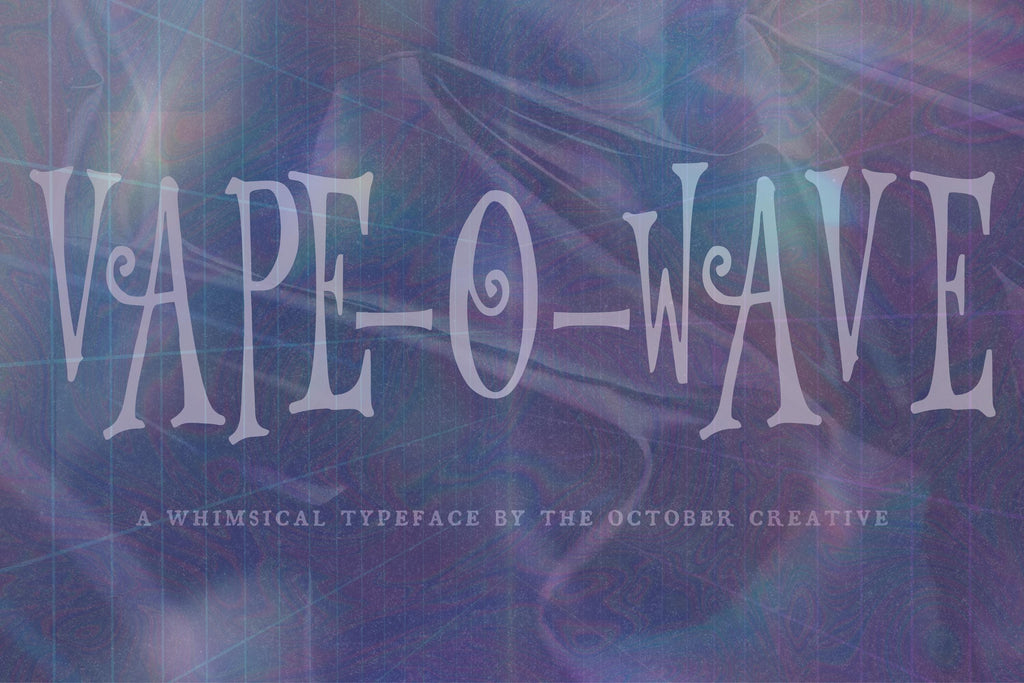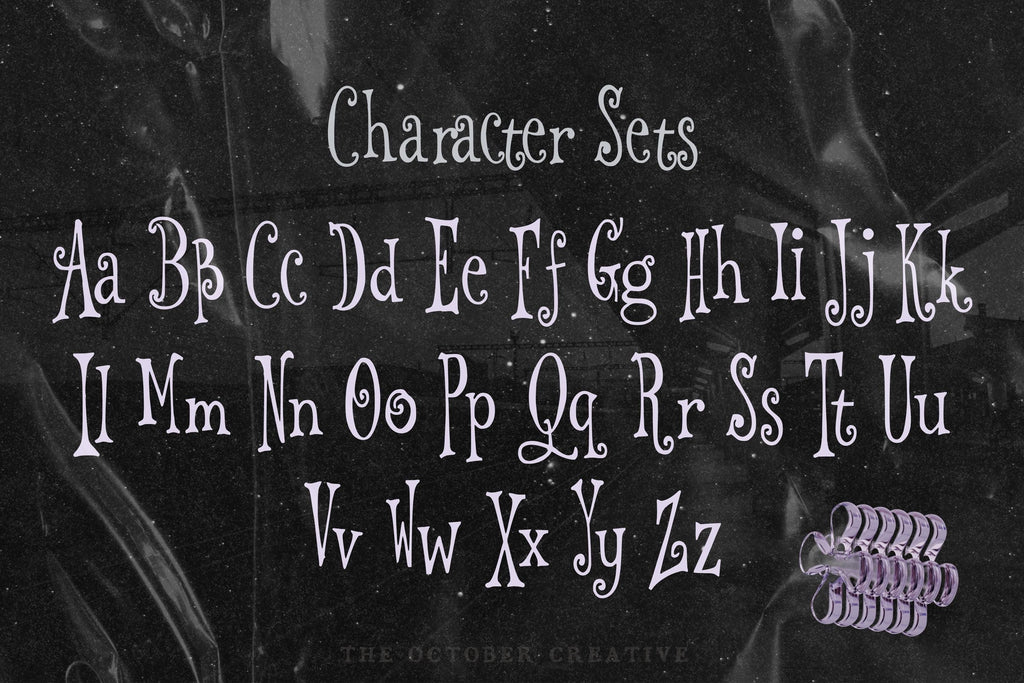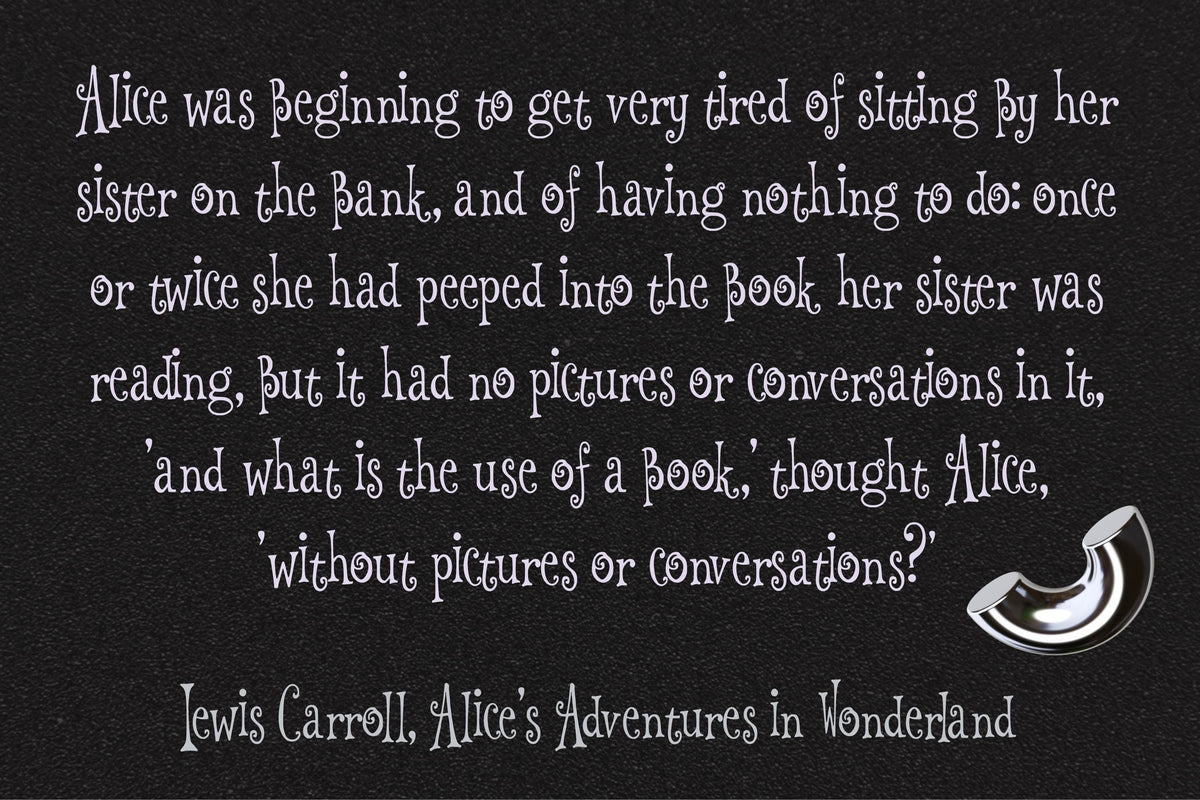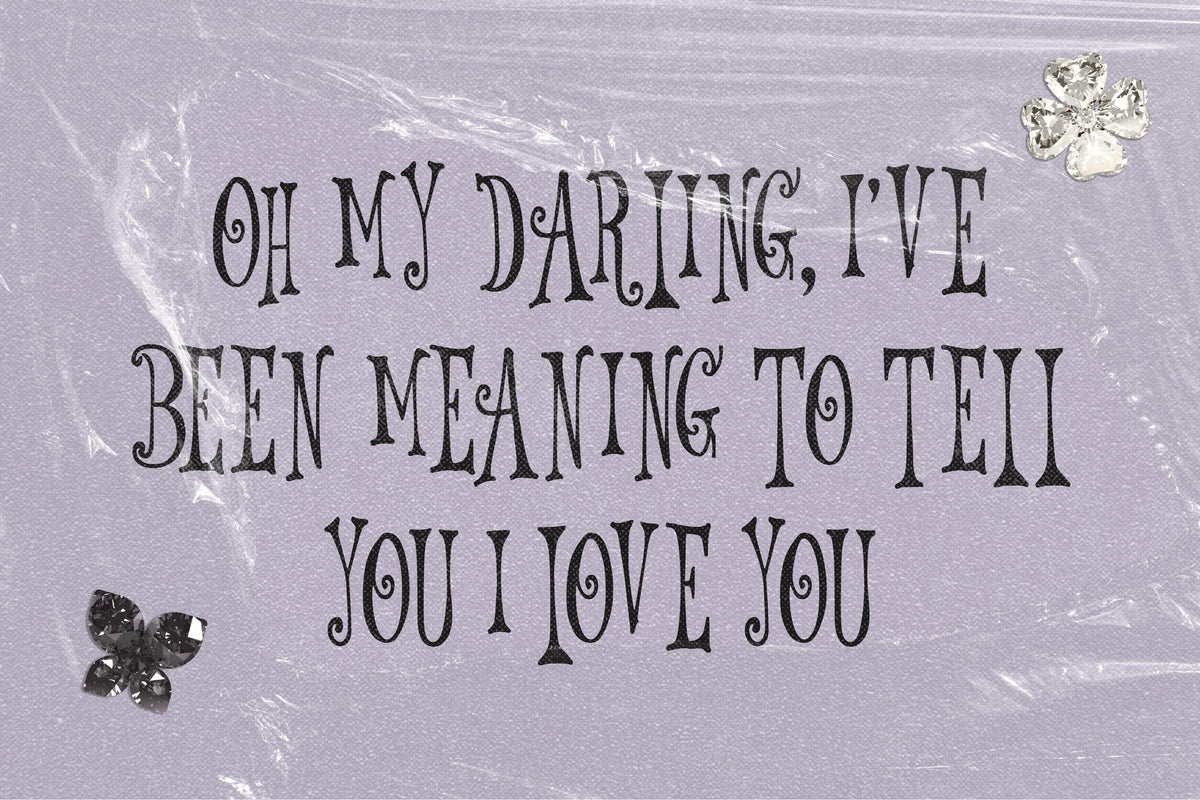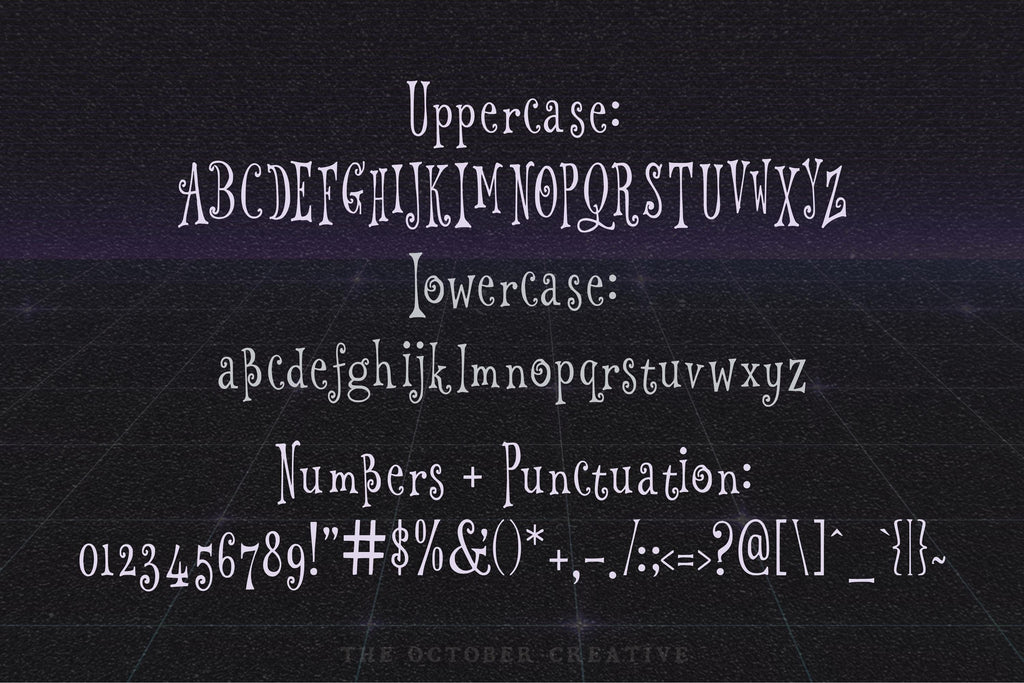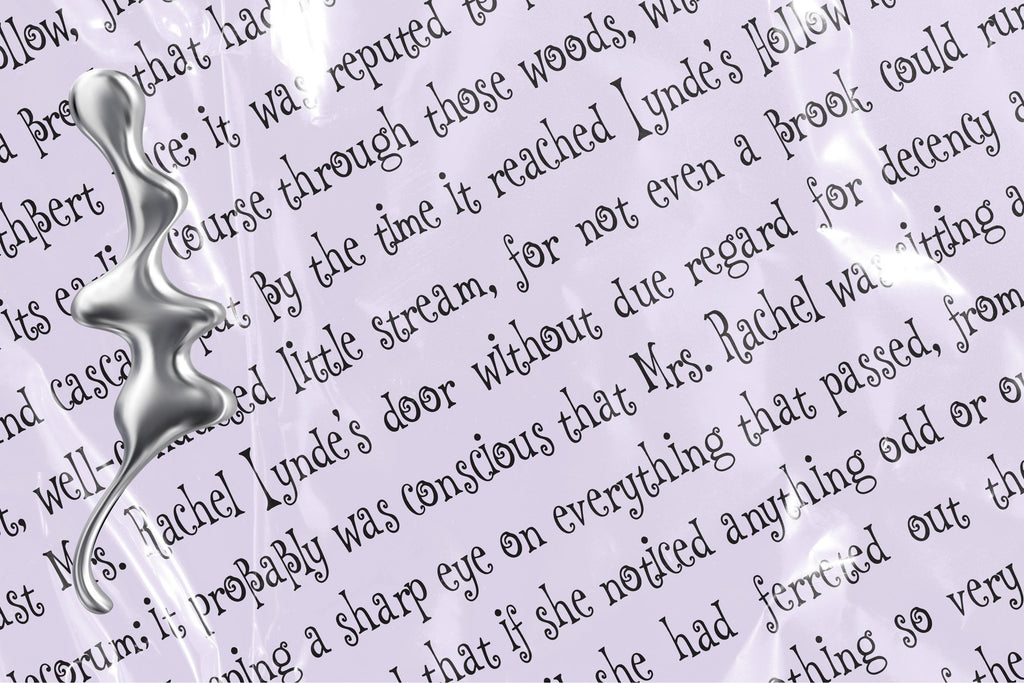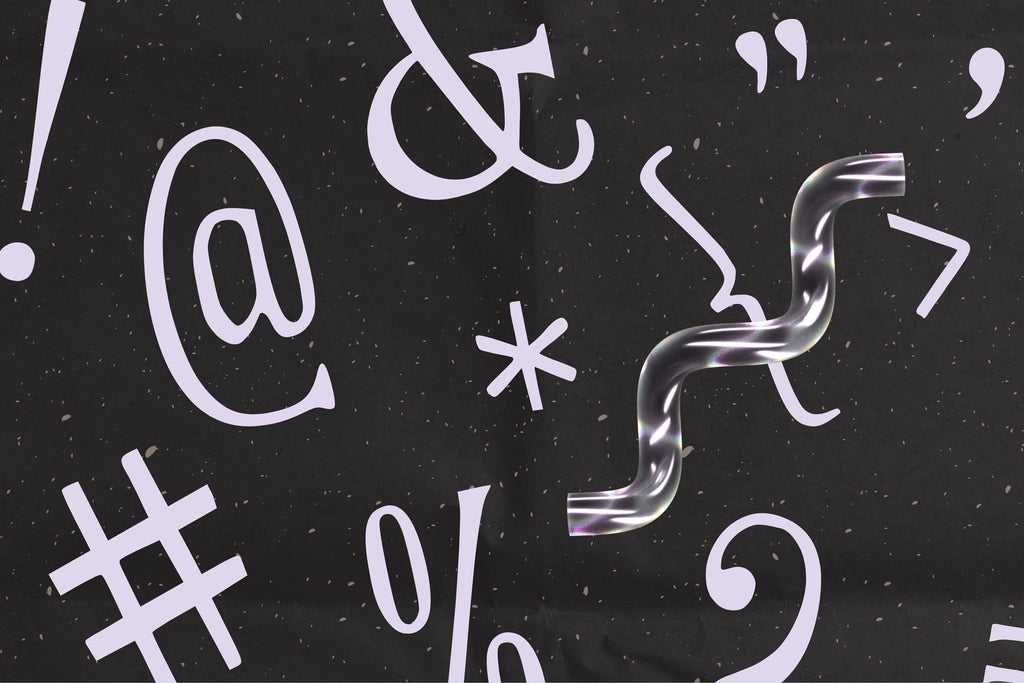
Vape-O-Wave Font
Vape-O-Wave gives tall, narrow letters a striking mix of thick curves and fine connecting lines. Use it for poster titles, music artwork, and bold prints where a short phrase can take up plenty of space.